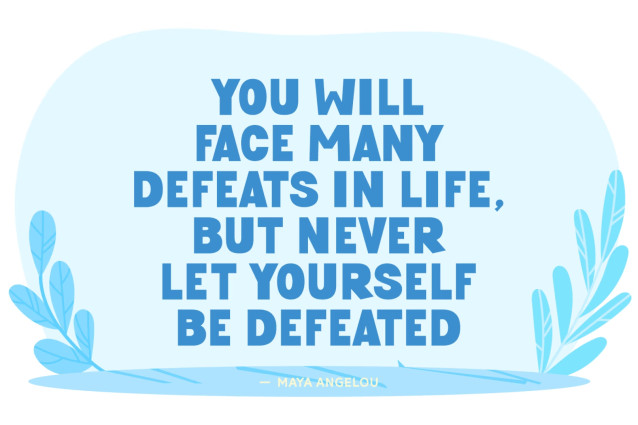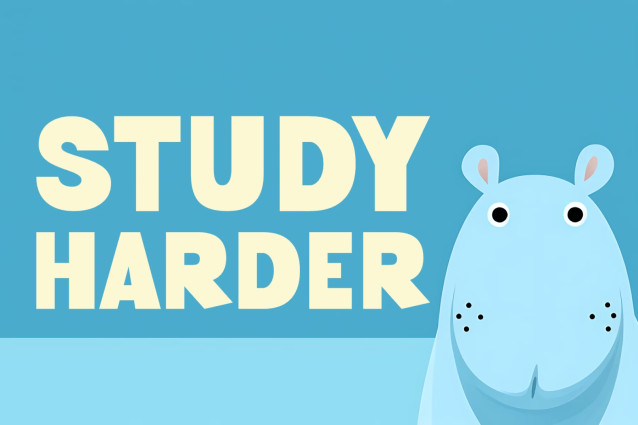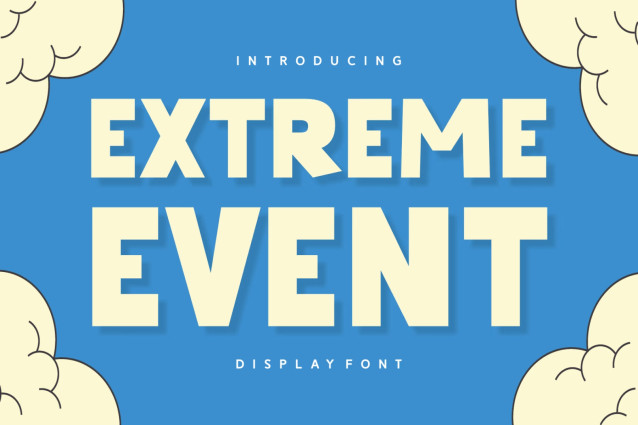
Fuel your creativity with “Extreme Event”, a versatile font that transcends boundaries. Embodying the aesthetics of display, cute, love, fashion and wallpaper fonts, this font is intricately hand-drawn that lends a headline-worthy charm to projects. Use it to craft beautiful designs that become social media hits, or as an impeccable backdrop for photography, making it highly desirable among sublimation fonts.
Simplicity meets sophistication, making it an excellent choice for school or print projects, or to add a cursive accent to apparel. Its authenticity shines — be it on book covers, branding materials, or cards — with its clean and smooth texture. This playful font fits perfectly on magazine pages, packaging designs, or greeting cards, and it effortlessly transforms logotypes, quotes, and T-shirts into works of art.
Ushering the spirit of seasonal fonts and cartoon fonts, “Extreme Event” encapsulates the on-trend vibe, effortlessly switching languages with multilingual support. Embrace the power of “Extreme Event” and unlock boundless creative opportunities!